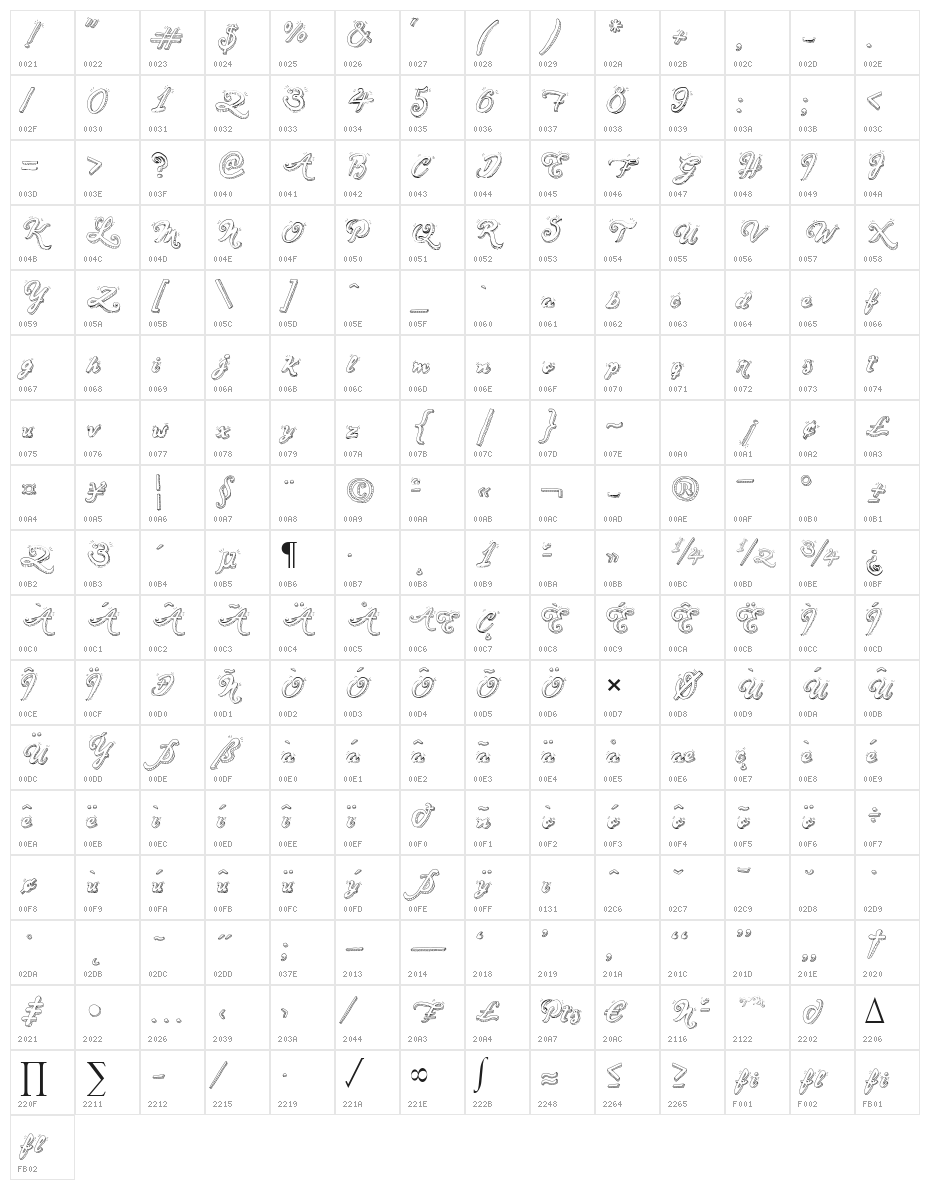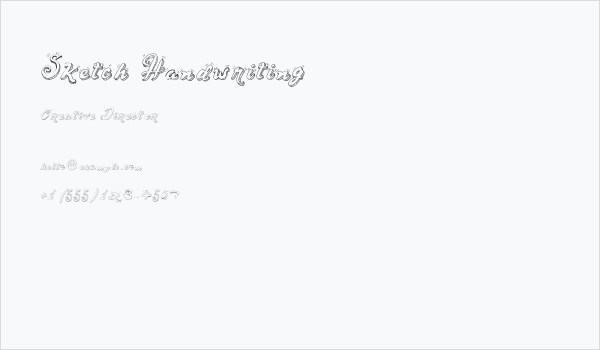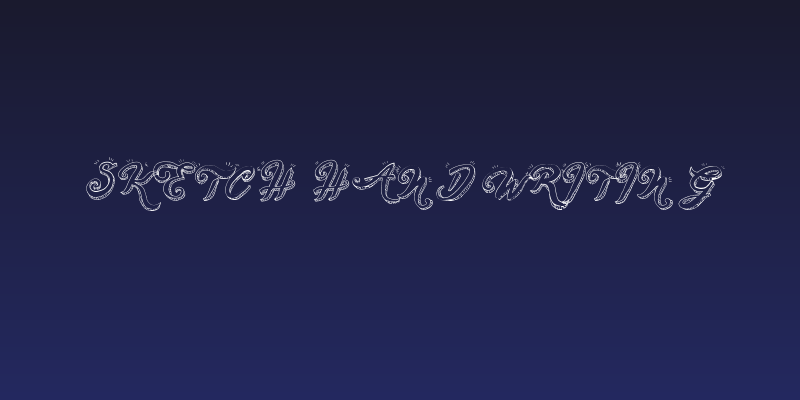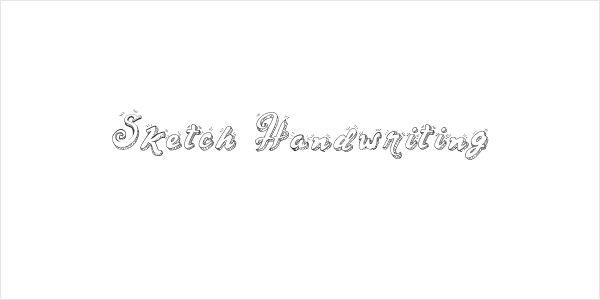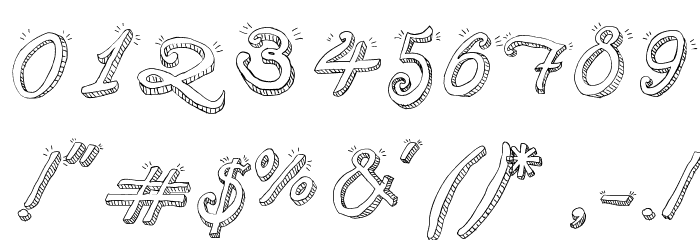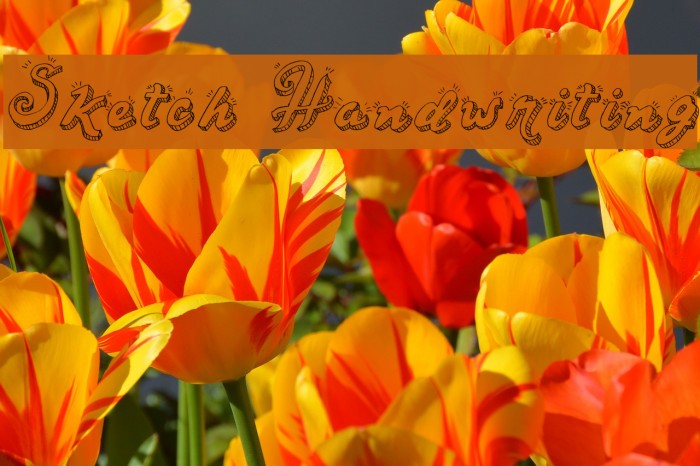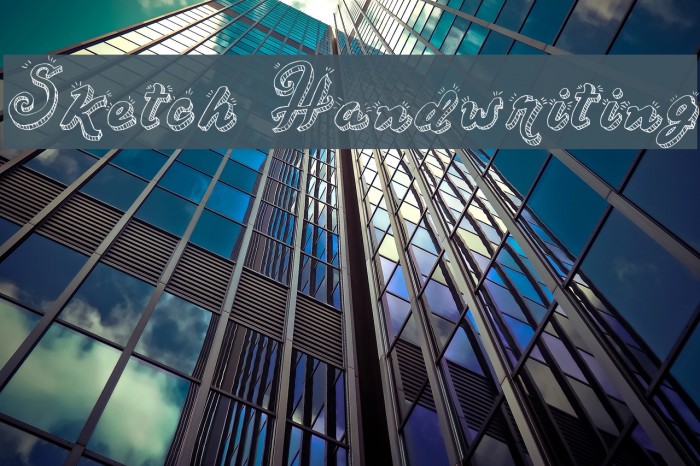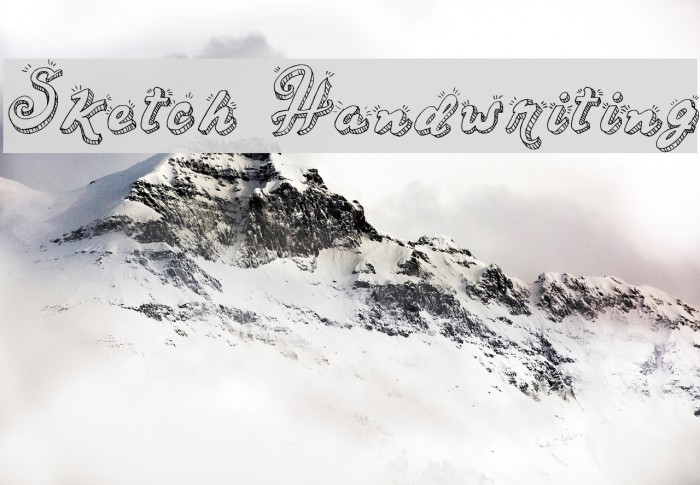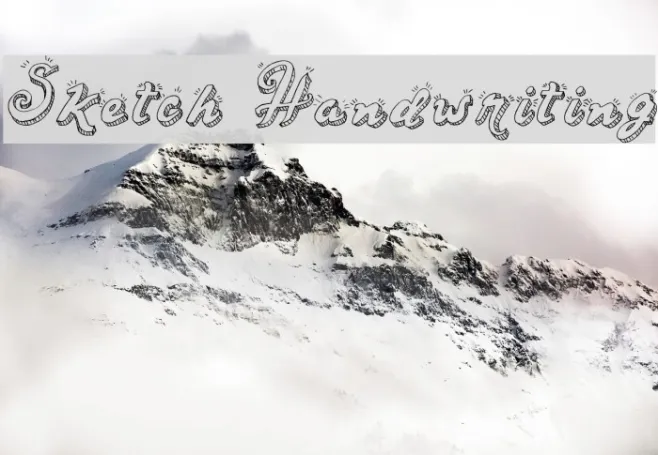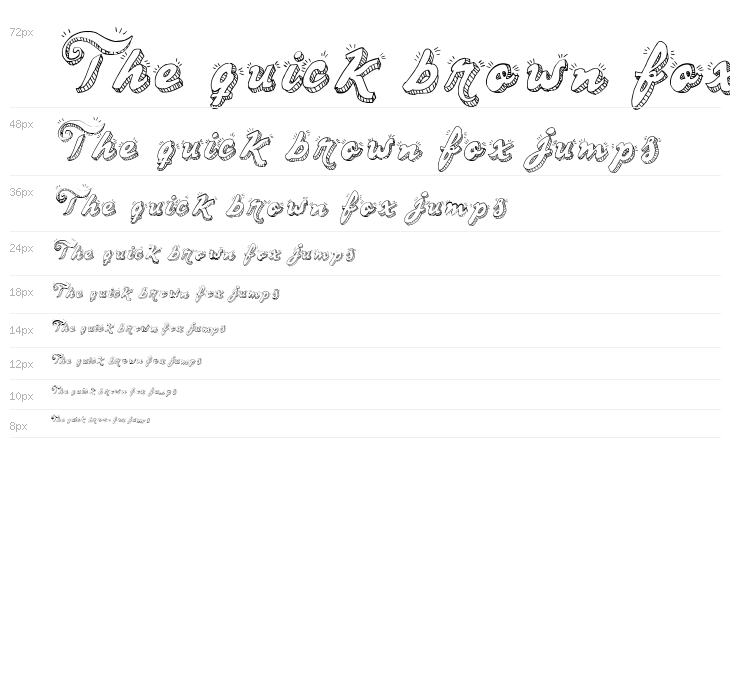
Sketch Handwriting Font
Sketch Handwriting Description
This font features a playful, sketch-like appearance with a hand-drawn quality. Each character is outlined with a shadow effect, giving it a three-dimensional look. The letters are connected in a cursive style, adding a fluid and dynamic feel. The font includes both uppercase and lowercase letters, numbers, and a variety of special characters. Its whimsical and artistic design makes it stand out, perfect for creative projects that require a personal touch.